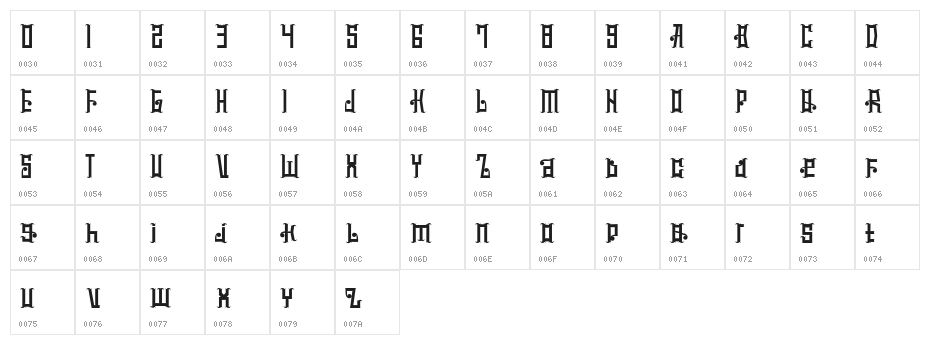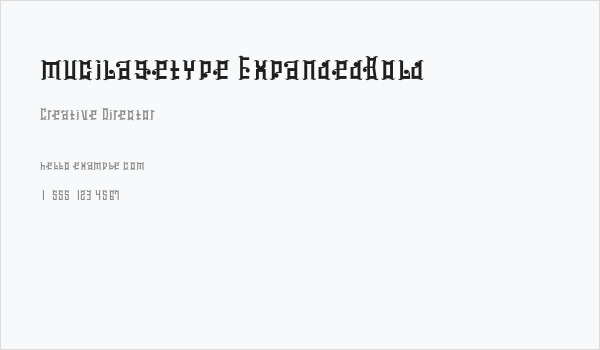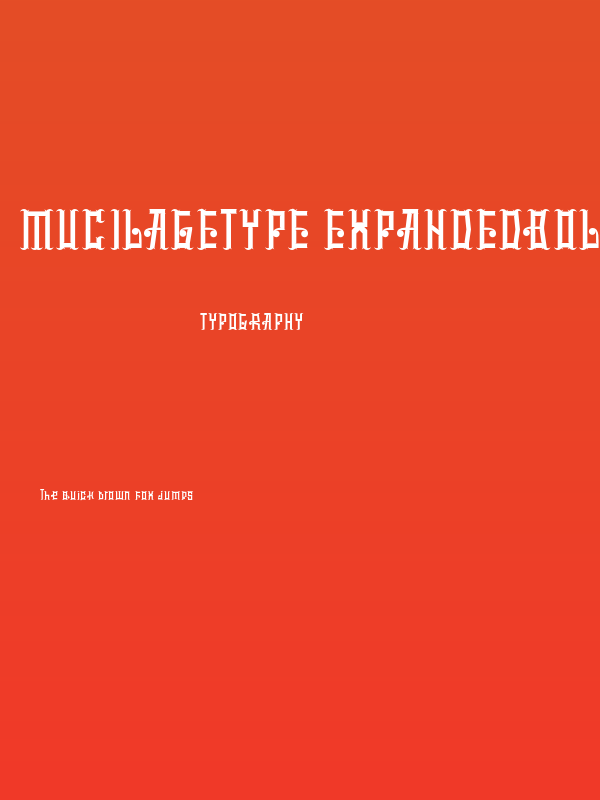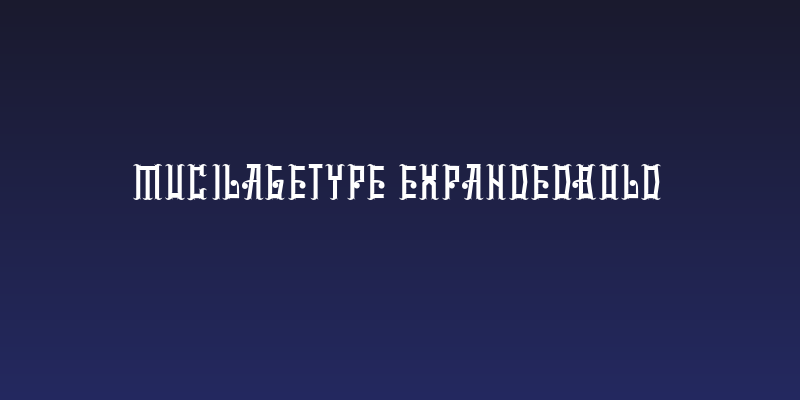
mucilagetype-ExpandedBold Font
This font features a bold and expanded style with a distinct blackletter influence. The characters are highly decorative, with intricate serifs and flourishes that give it a gothic and medieval appearance. The uppercase and lowercase letters maintain a consistent style, with sharp angles and a strong vertical emphasis. The numbers and special characters are equally ornate, fitting seamlessly with the overall aesthetic. This font is designed to capture attention and convey a sense of tradition and formality.
Proposed ProjectsIdeal for projects requiring a historical or medieval theme, such as book covers, posters, or branding for events like renaissance fairs.